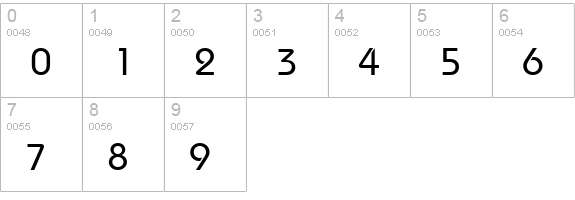
Dessau-Medium-Regular is a balanced, medium-weight variant in the Dessau typeface family \xE2\x80\x94 well suited to sub-headlines, navigation, and balanced editorial work.
Dessau-Medium-Regular font is a versatile and modern typeface that strikes the perfect balance between elegance and readability. Its clean lines and timeless design make it suitable for a wide range of projects, from branding to editorial design. The medium weight of this font conveys a sense of balance and professionalism, making it ideal for both headings and body text. What sets Dessau-Medium-Regular font apart is that it is available for free download at FontsMarket.com. This means that you can easily access and use this high-quality font in your projects without any cost. Whether you need a classic and sophisticated typeface for your next design project or simply want to expand your font collection, Dessau-Medium-Regular is a great choice that won't break the bank. Download it today and elevate your designs with this elegant and stylish font.